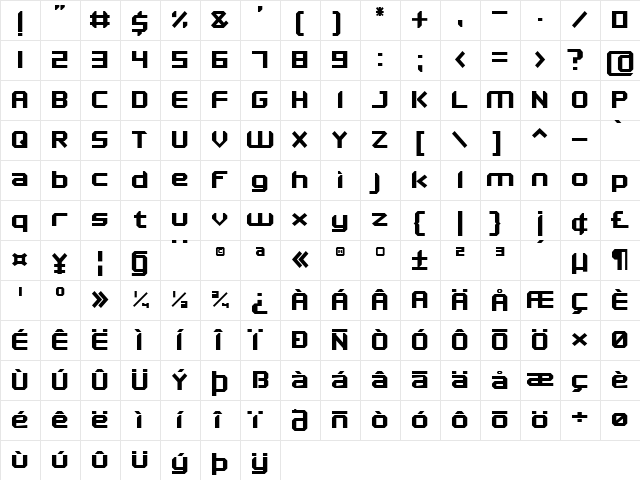
MAKEN Bold
| Foundry | Rais-Type |
| Designer | Israel Martinez Herrera |
Design Context for MAKEN Typeface
MAKEN takes a measured approach to typography — its balanced proportions and neutral character make it a reliable workhorse for both digital and print work. Its bold stroke weight gives it real presence on the page.